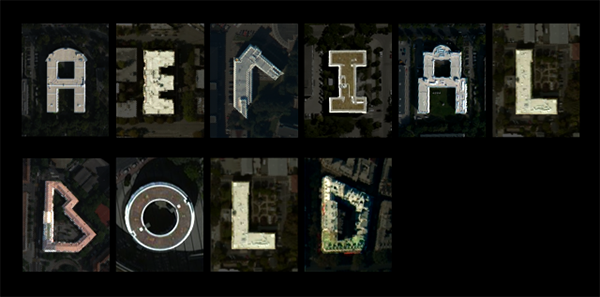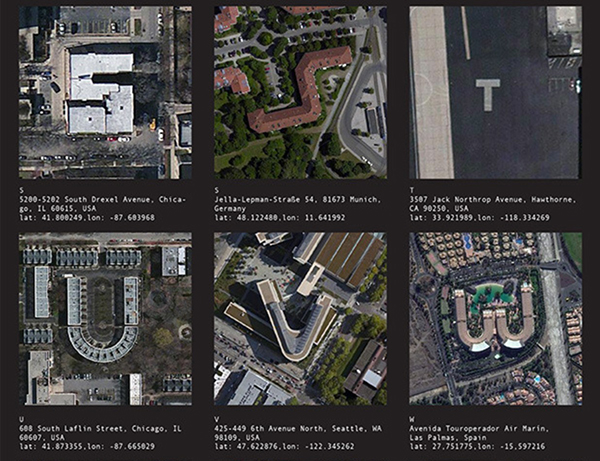
A Down-to-Earth Typeface on the Horizon
In a growing list of interesting typeface concepts, I think this one is high on the list, but very down to earth. Aerial Bold—brainchild of Joey Lee and Benedikt Groß—will, quite literally, be created by the earth. By using satellite images, the creators intend to map out letterforms shaped by buildings, lakes, forests, highways, and anything else found hiding amid the aerial imagery. The Aerial Bold project recently hit its funding mark of $10,000 on Kickstarter.
With a nod to mass data-crunching projects like SETI at Home, Lee and Groß are touting the project as “The Planetary Search for Letterforms.” But, this ambitious undertaking is about more than just a new typeface. The Aerial Bold team will be making the entire collected database of letterforms and symbols derived from the imagery available for designers to use. Not only that, but they intend to make the tools used to capture and create the data available as an opensource resource.
So, not only will the Aerial Bold project yield a creatively curated collection of characters in OpenType and TrueType formats, it will also offer a way for the average Joe designer to do the same. I can visualize creating subsets of the typeface created from a specific region, or just using the natural elements of satellite imagery as a starting point. I’d be lying if I said I hadn’t already compiled a short wishlist, starting with “Bold Buildings of the Soviet Era” and “Glyphs of Glasgow Greenery.” And, if you’re like me, you’re not going to look at satellite images the same ever again!